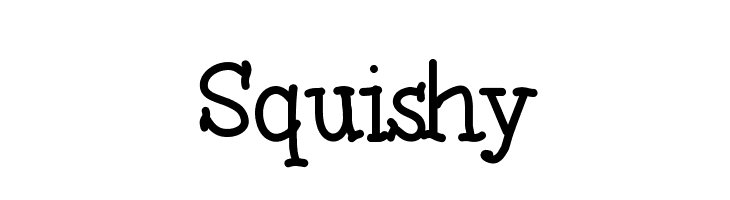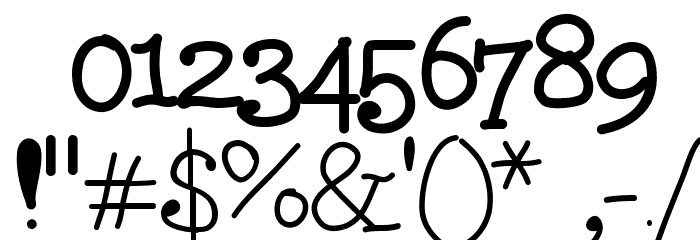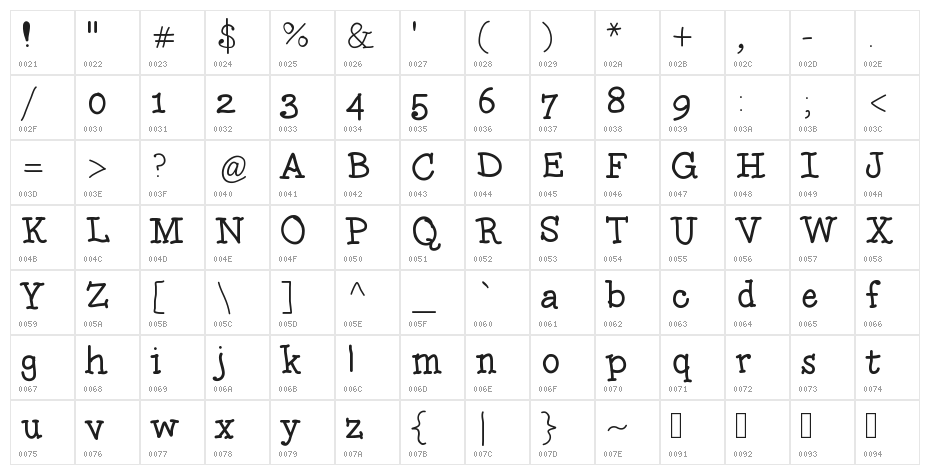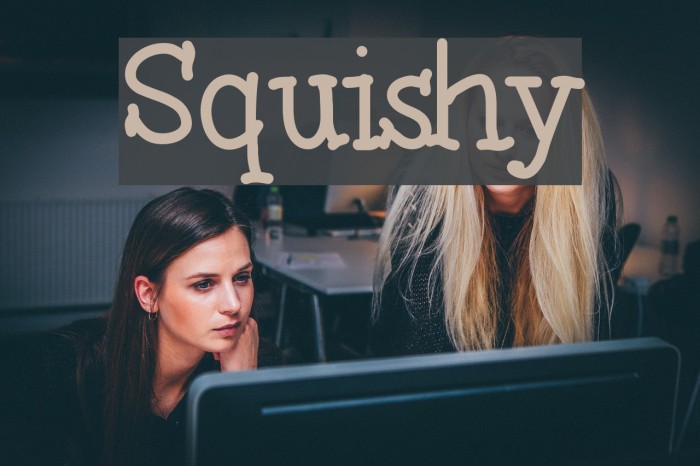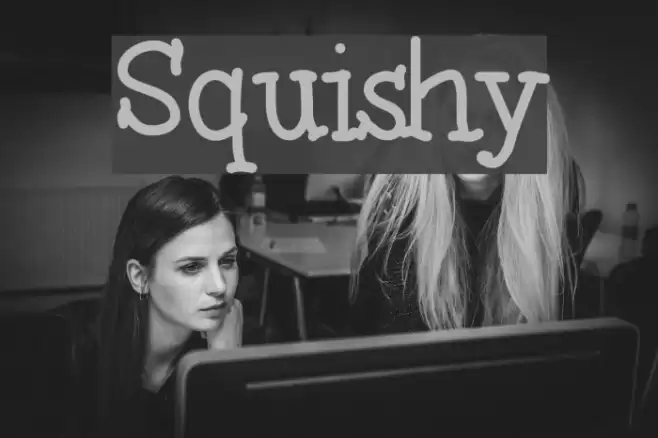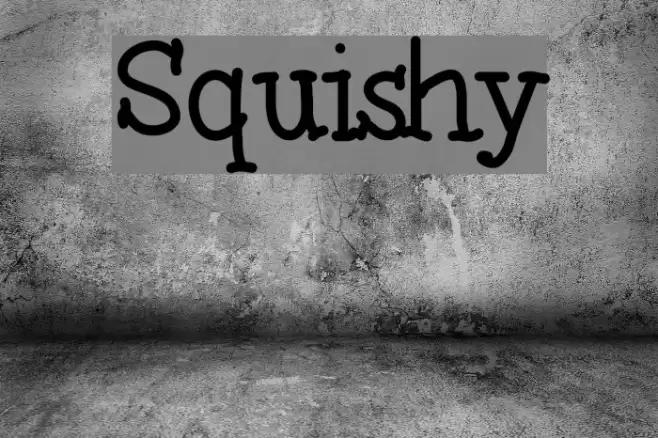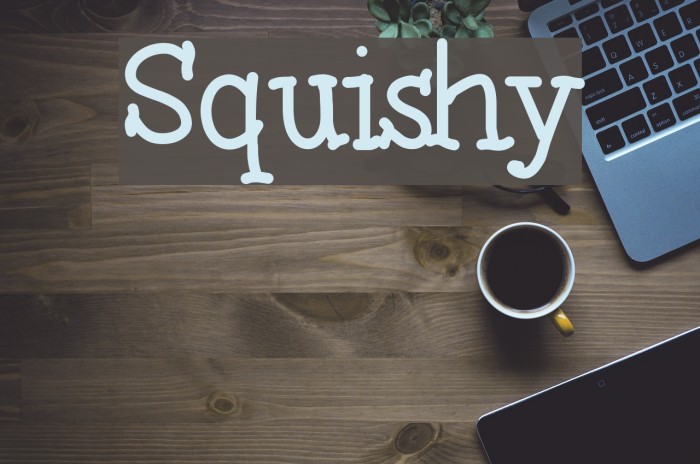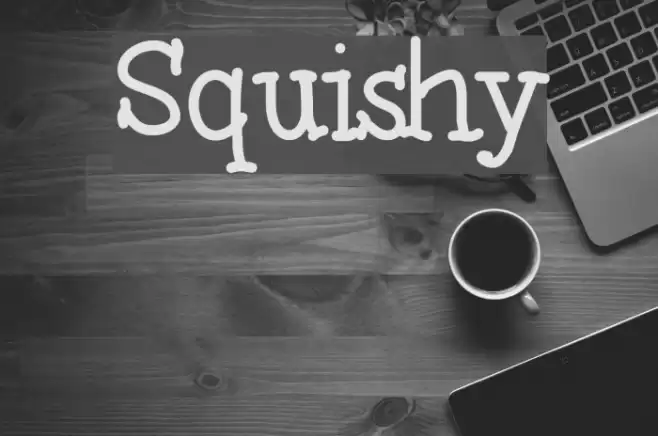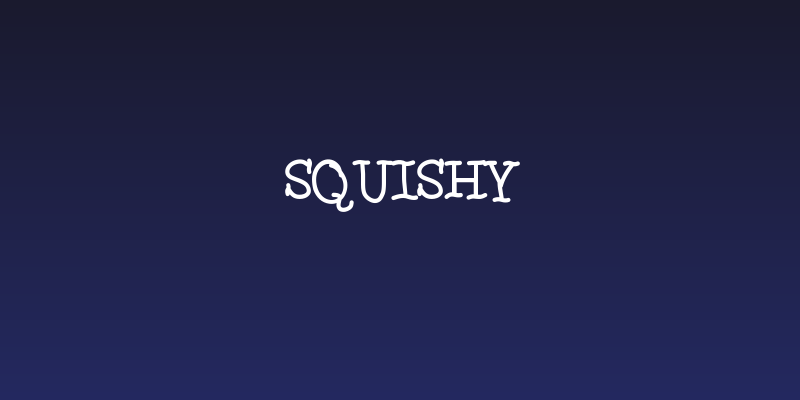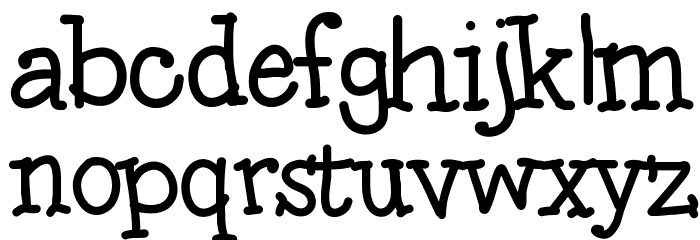
Squishy Font
Squishy Description
This playful and whimsical font features a hand-drawn aesthetic with a slightly irregular baseline, giving it a casual and friendly appearance. The characters are rounded and bold, with a consistent stroke width that adds to its approachable style. The uppercase letters are slightly taller than the lowercase, maintaining a uniform look across the alphabet. Numbers and special characters are designed with the same playful curves, making them blend seamlessly with the letters. This font's unique style makes it stand out, while still being highly legible.